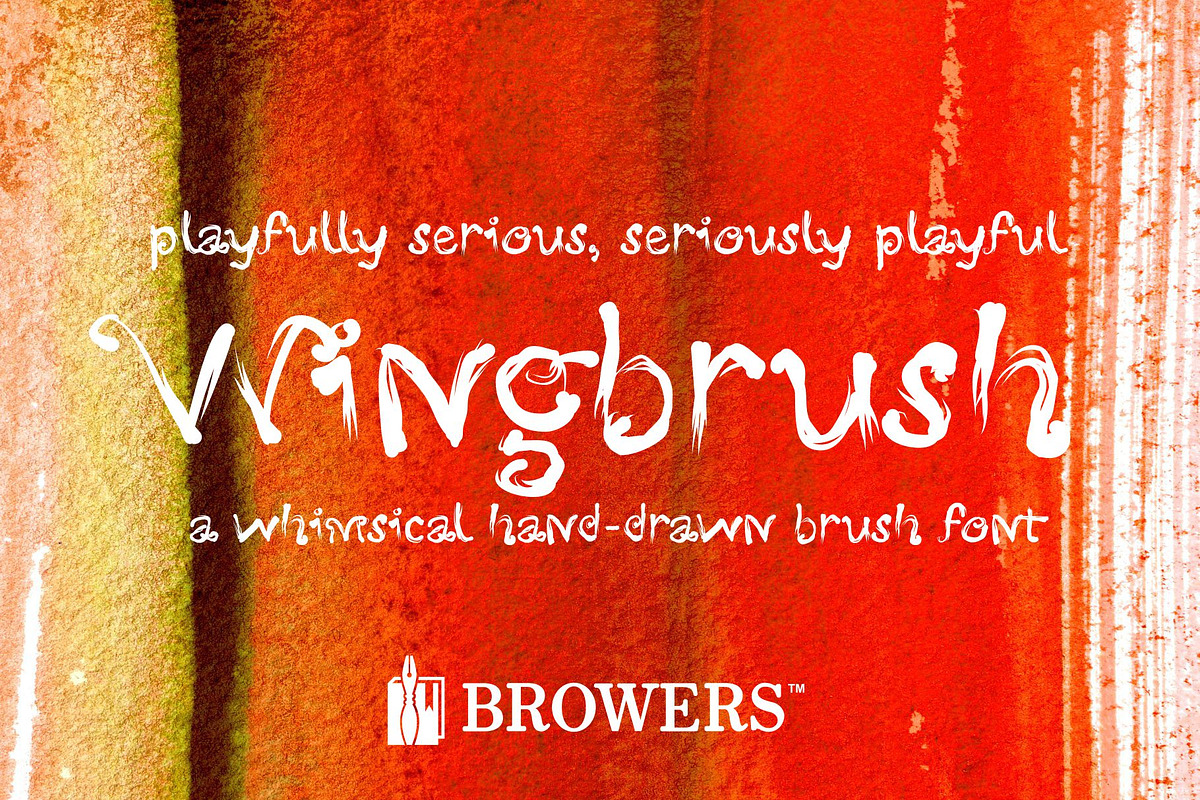
Wingbrush Font
Wingbrush is a whimsical, hand-drawn brush font.
Why Wingbrush Font is worth a look
Wingbrush Font by Michael Browers fits naturally into Branding, posters, packaging, typography.